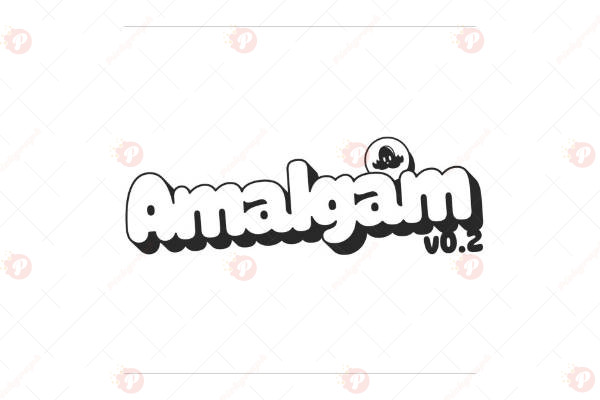
The Amalgam Font Free is a stylish modern serif typeface that blends elegance and readability for professional and creative design. With its refined strokes, high contrast, and contemporary style, it’s perfect for branding, editorial layouts, logos, posters, packaging, and websites.
This typeface strikes a balance between classic sophistication and modern minimalism, making it a versatile choice for both print and digital design projects. Whether you’re creating a fashion brand identity, magazine design, or luxury packaging, the Amalgam Font Free will elevate your work with a premium look and feel.
Typeface: Serif / Modern / Stylish
Style: Elegant / Minimal / Premium / Versatile
Perfect for: Branding, Editorial, Fashion Design, Packaging, Websites, Posters, Social Media